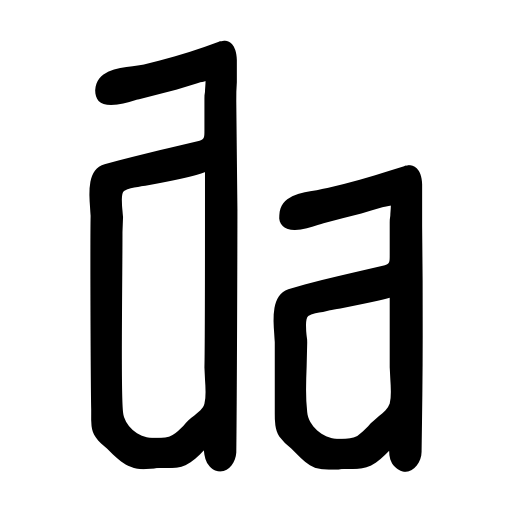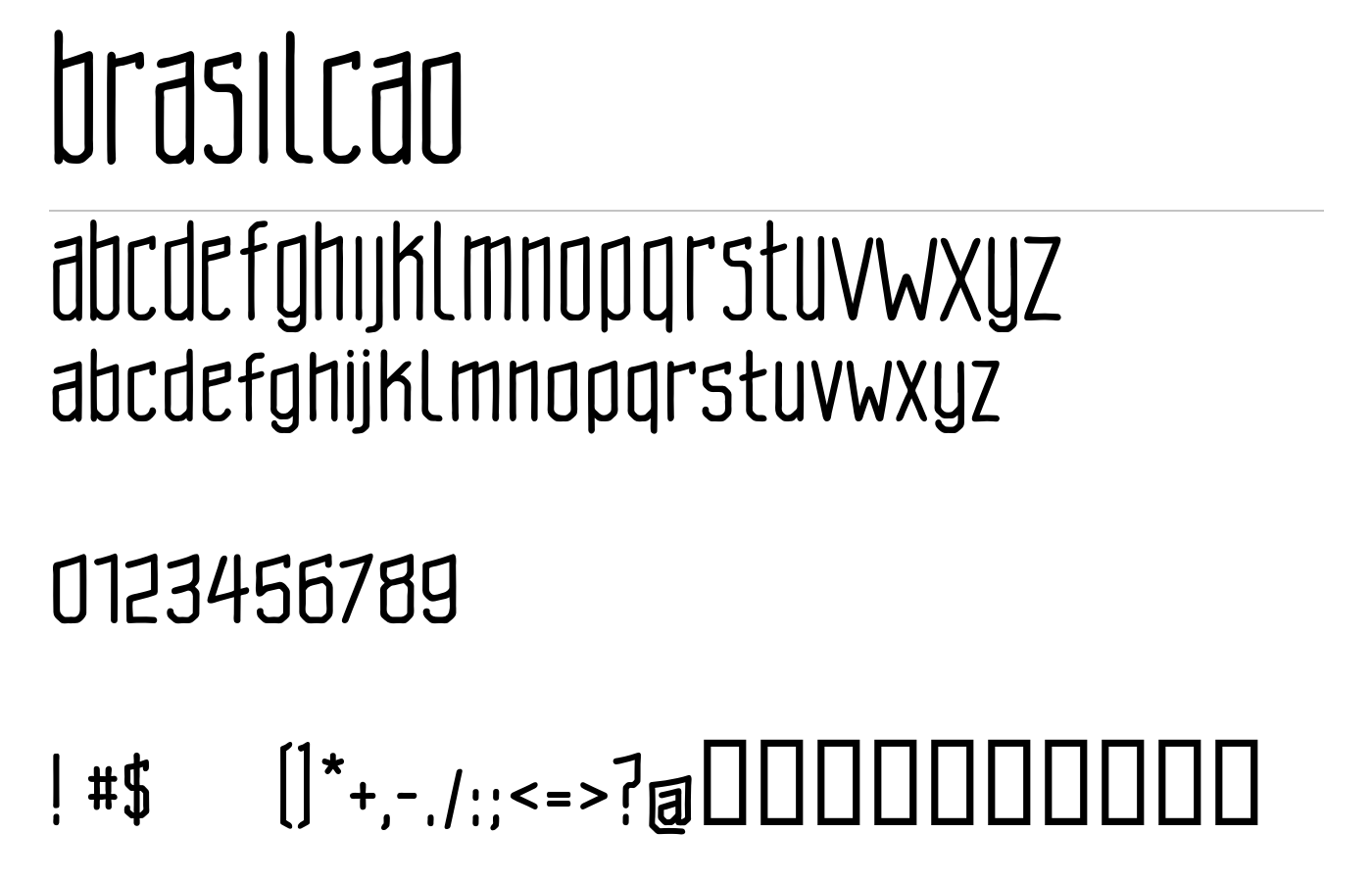
BRASILCAO is a narrow, geometric sans serif font with a tall x-height and a modern, slightly playful feel thanks to its softly rounded corners and unique letter shapes. Its consistent stroke weight and condensed style make it ideal for headlines, branding, and display use where a clean but distinctive look is desired. This font works well for creative projects, tech brands, or edgy editorial designs seeking a fresh and approachable yet structured appearance.
BRASILCAO Font
About BRASILCAO Font